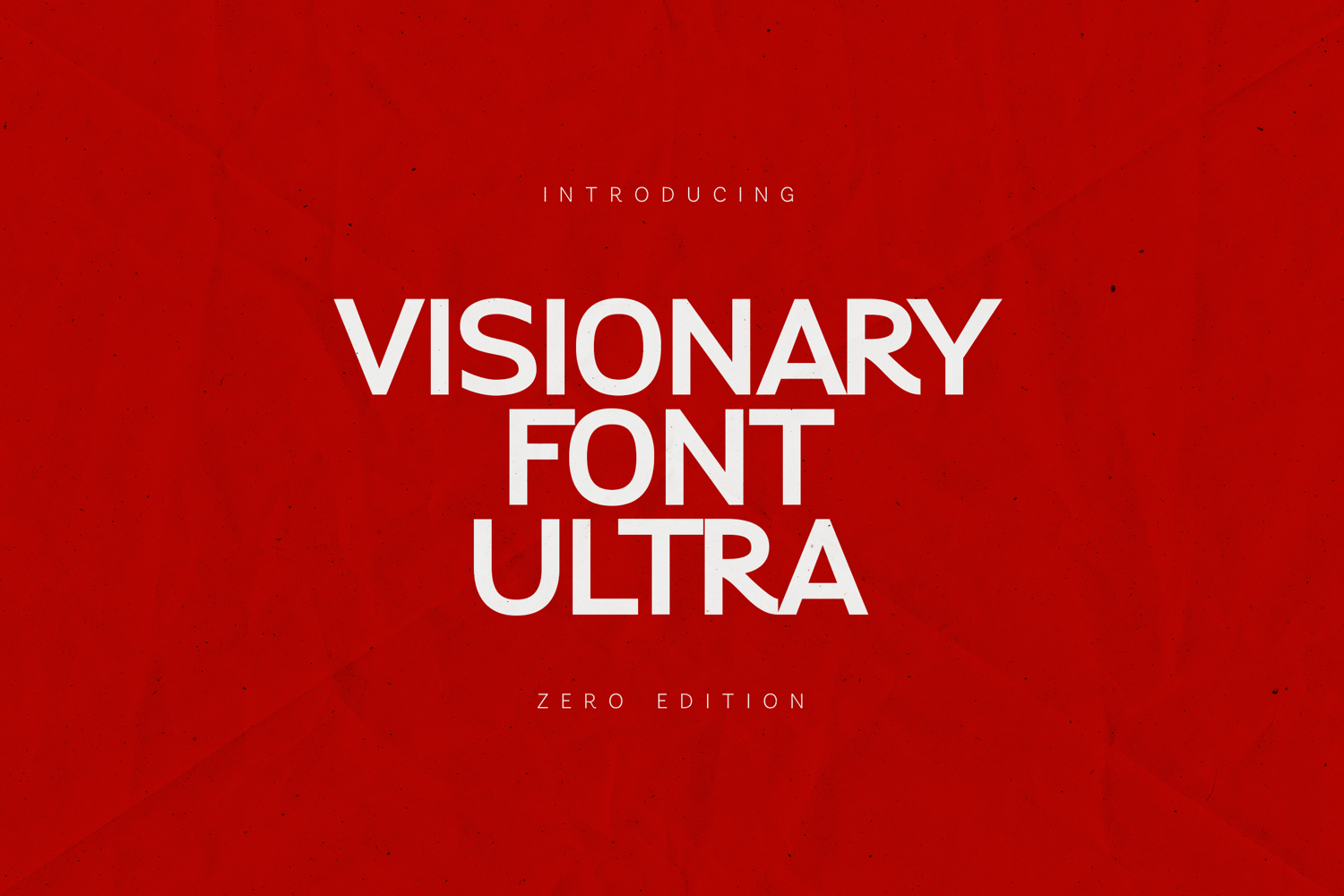
Visionary Font Ultra Bold Modern Sans Serif Font
Visionary Font Ultra is a bold modern sans serif font built for clarity, impact, and future-focused design. Featuring strong geometric shapes, clean edges, and confident proportions, this typeface delivers a powerful visual voice that feels contemporary, progressive, and highly legible.
Designed for modern branding and bold communication, Visionary Ultra is ideal for logos, headlines, posters, campaigns, tech branding, startups, websites, packaging, and social media graphics. Its solid structure and neutral personality make it versatile across both digital and print applications while maintaining a strong, authoritative presence.
Visionary Ultra is made for designers who need strong, modern typography that communicates confidence, innovation, and clarity at any scale.